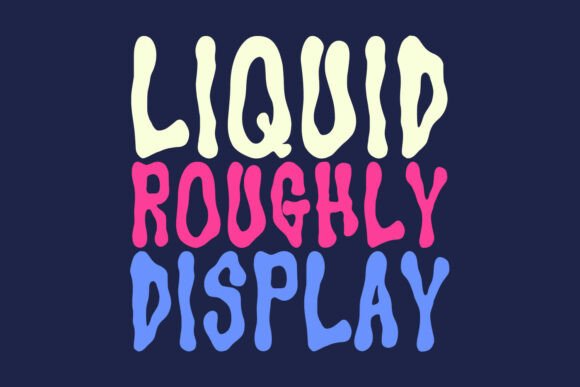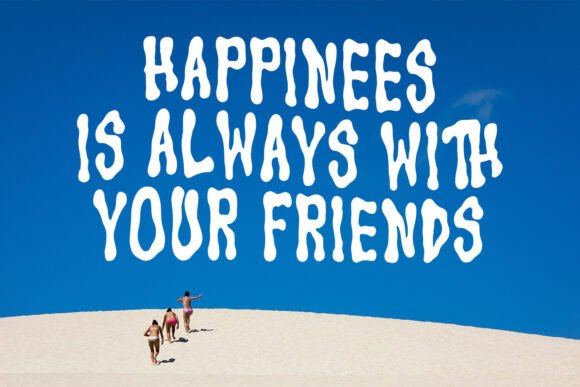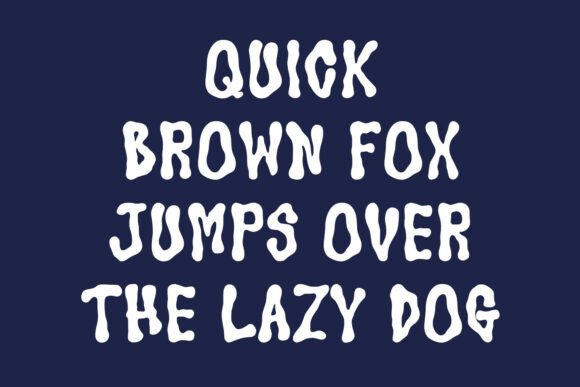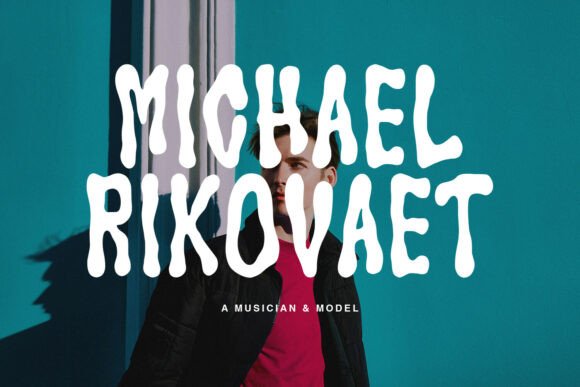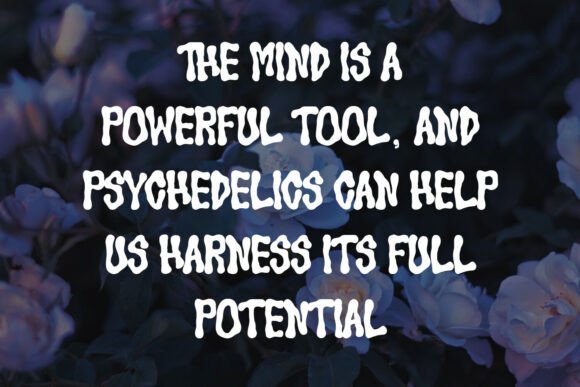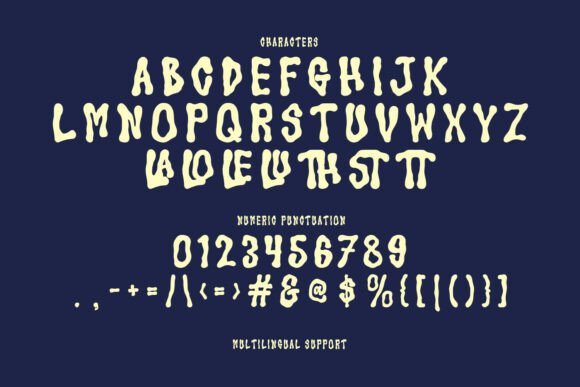
The Designer’s Delight: Unleashing the Power of Acidzz Font
I’ll never forget the time I was working on a music poster project, tasked with creating an eye-catching title that would grab the audience’s attention. I scoured the internet for the perfect font, but nothing seemed quite right. That was until I stumbled upon Acidzz, a bold and fluid display font that instantly resonated with my design vision. In this article, I’ll share my experience with Acidzz, its unique features, and how to make the most of this amazing font.
First Impressions: What I Love About Acidzz
Acidzz is a game-changer for designers looking to add an unconventional touch to their projects. Here are some of the things I love about this font:
- ✨ Unique and eye-catching design: Acidzz’s wavy, melting shapes are inspired by the organic motion of water and the trippy distortion of acid visuals, making it perfect for music posters, album covers, and edgy branding.
- ✅ Highly versatile: This font can be used for a wide range of design projects, from bold headlines to social media graphics.
- 💥 Instant attention-grabber: Acidzz is designed to make a statement, and its bold, fluid shapes are sure to grab the audience’s attention.
Honest Review: A Few Quirks to Consider
While Acidzz is an amazing font, there are a few quirks to consider:
- 🤔 Limited legibility: Due to its bold, fluid design, Acidzz may not be the best choice for body text or long paragraphs.
- ⚠️ Glyph compatibility: Some glyphs may not work seamlessly with all platforms or software, so it’s essential to test the font before finalizing your design.
The Story Behind Acidzz: Designer Inspiration
Acidzz was inspired by the organic motion of water and the trippy distortion of acid visuals. Its designer, a creative genius with a passion for music and art, aimed to create a font that would capture the essence of the psychedelic experience. With Acidzz, you can bring a piece of that experience to your designs.
| Font Name | Acidzz Font |
| What is Acidzz font? | Acidzz is a bold and fluid display font inspired by the organic motion of water and the trippy distortion of acid visuals. |
| Is Acidzz suitable for body text? | No, Acidzz is best used for headlines, titles, and short phrases due to its bold design and limited legibility. |